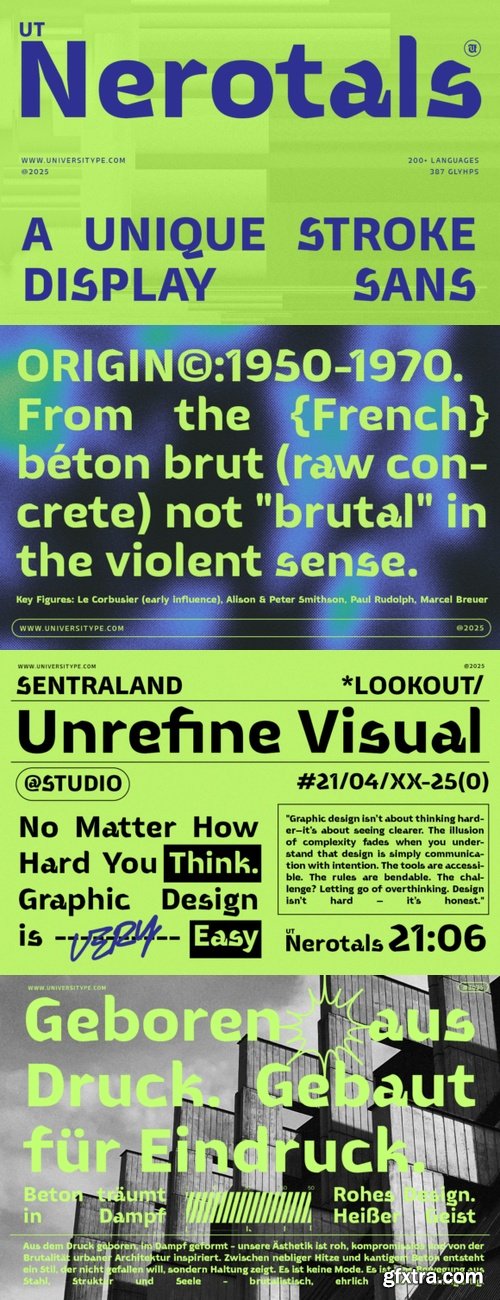
- Introducing UT Nerotals, a highly impactful and modern typeface that breathes life into the quintessence of modern sculptural aesthetics. This typeface showcases a beautiful fusion of power and flexibility, portraying the heart and soul of three-dimensional art in the canvas of a two-dimensional format.
- Every stroke of UT Nerotals speaks of grace and strength, with its broad letterforms and sleek curves paving the way for stability and finesse. These characteristics make it a perfect fit for an array of design platforms.
- This exquisite typeface aligns perfectly with the artistic needs of graphic designers, branding agencies, and editorial designers who are seeking a font that mirrors modernism and creative expression.
Key Highlights of UT Nerotals: – Broad, bold letterforms with sleek curves – Outstanding readability over different sizes – Versatile for digital and print platforms – Emulates contemporary sculptural aesthetics
The inception story of UT Nerotals is as fascinating as the font itself. The seeds of inspiration were sown by an alluring sculpture that harmonized organic forms with geometrical accuracy. The fluid contours and balanced harmony of this art piece fueled the creation of this unique typographic form. The play of light and shadow in the sculpture propelled the design process to seize its kinetic spirit. Every single character in UT Nerotals reflects the strength and elegance inspired by the sculpture. The font perfectly mirrors the sculpture’s ability to exhibit motion and stability in one frame. The touchable quality of the sculpture, enticing spectators to experience its form, led to the crafting of a typeface that feels inviting and distinctive. This inspired the formation of broad letterforms with seamless transitions, resonating with the sculpture’s welcoming aura. Summing it up, UT Nerotals is a tribute to the artistic power of sculptures. It captures the magic of crafting expressive forms out of solid materials, and it channels that ethos into a distinct font that bridges visual art with the world of written communication.